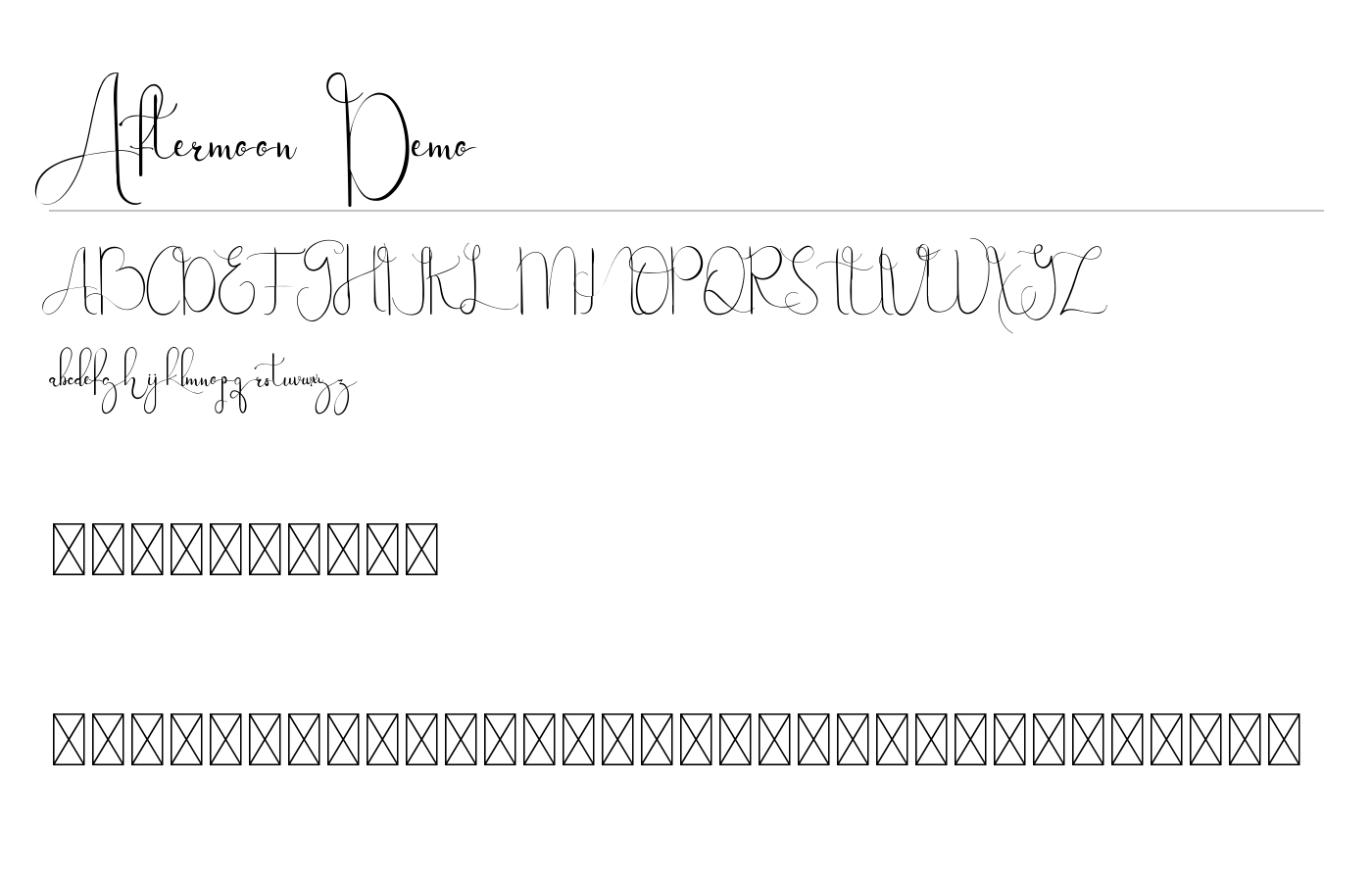
Aftermoon Demo is an elegant, delicate script font with thin, flowing strokes and decorative swirls that give it a whimsical and romantic feel. Its tall, slender letterforms and intricate loops make it perfect for sophisticated branding, wedding invitations, and feminine editorial designs where a touch of graceful charm is desired. This font shines best in large sizes and display use, adding a refined and artistic flair to any project.
Aftermoon Demo Font
About Aftermoon Demo Font
| Font family | Aftermoon Demo Font |
| Designer | Saila Nurrisalma & Sarah Suci P |